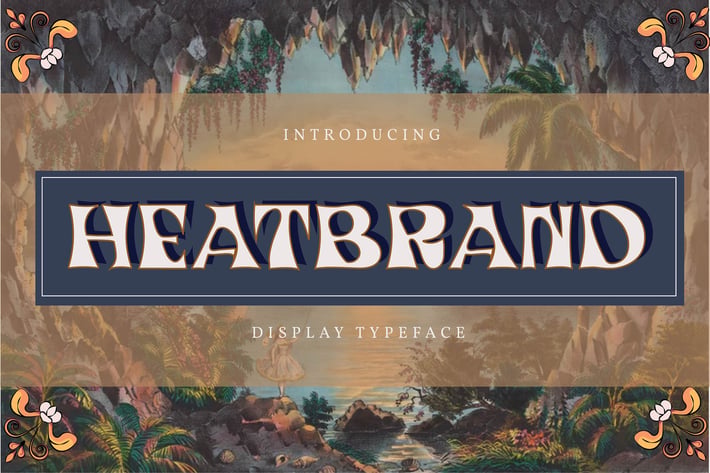
Heatbrand | Display Typeface
Heatbrand | Display Typeface with a calligraphy style, So beautiful on invitation like greeting cards, branding materials, business cards, quotes, posters, and more!